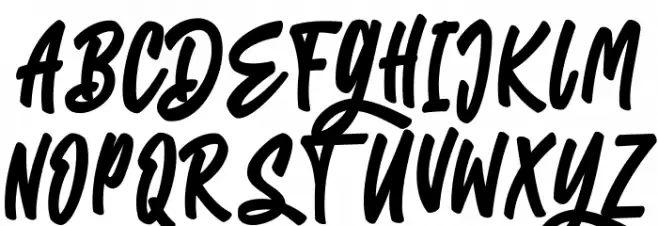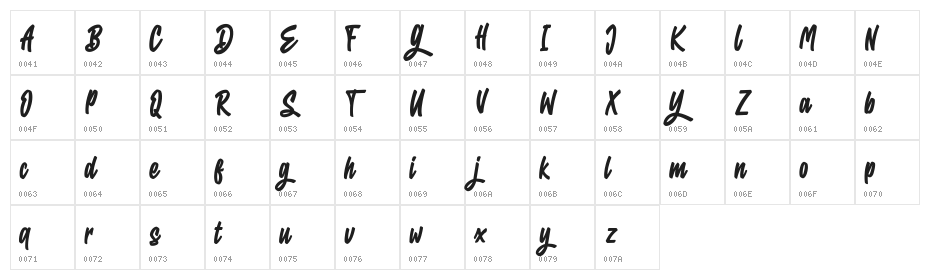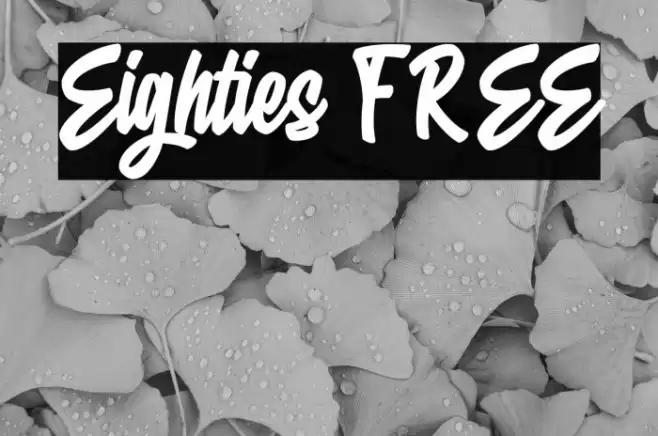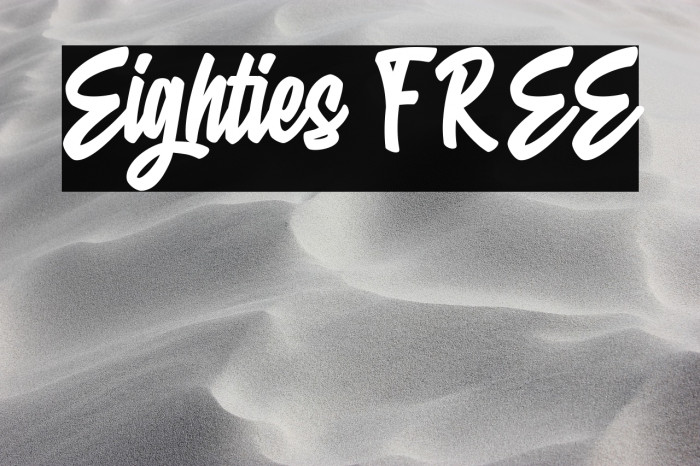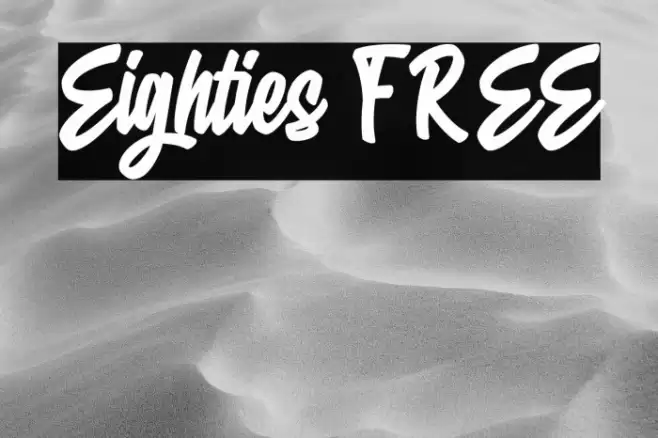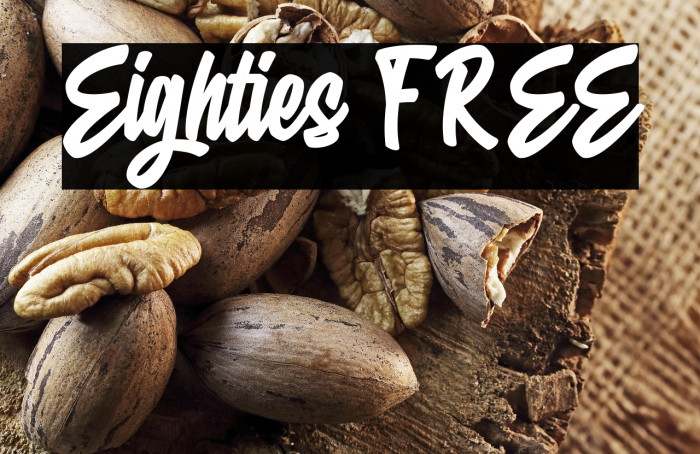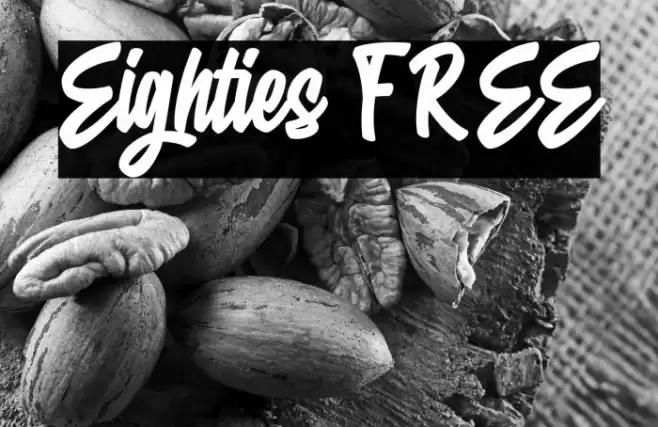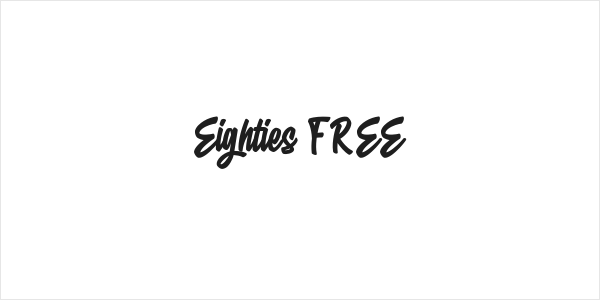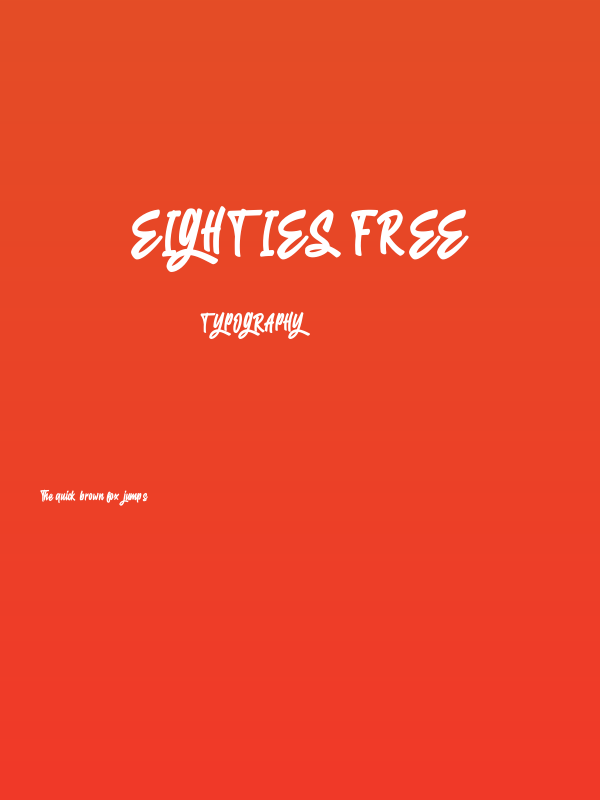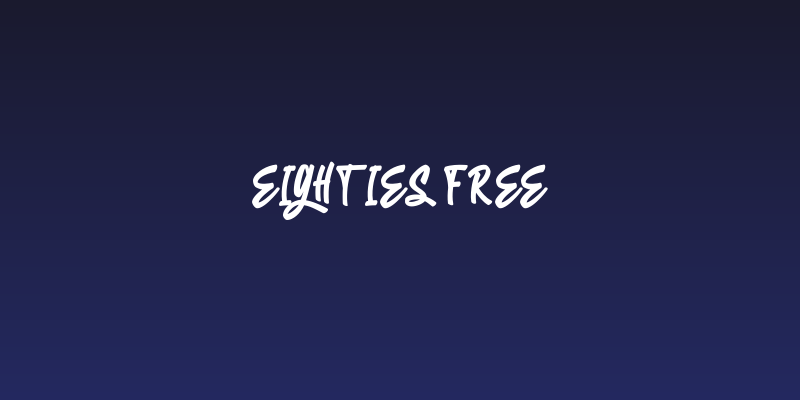
Eighties FREE Font
Eighties FREE Description
This font exudes a bold, energetic style reminiscent of the vibrant 1980s aesthetic. The characters are crafted with a dynamic, flowing script that combines both uppercase and lowercase letters seamlessly. The strokes are thick and confident, giving each letter a sense of movement and flair. The font's playful yet assertive nature makes it ideal for capturing attention. Its unique design elements, such as the exaggerated curves and loops, add a touch of personality and creativity, making it stand out in any design project.
| Proposed Projects | Ideal for retro-themed posters, branding, social media graphics, and event invitations. |